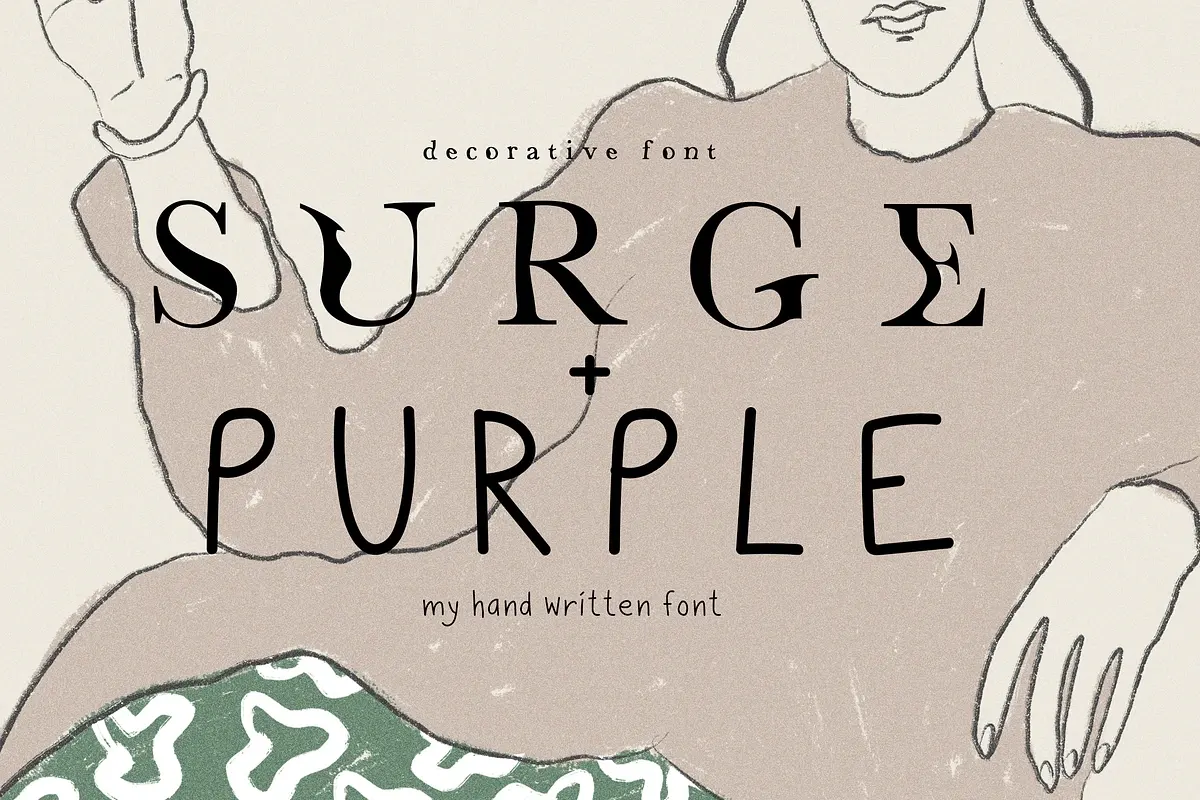
Decorative + handwritten font set Free Download
Decorative + Handwritten Font Set Free Download
Ideal for invitations, branding, social media posts, logos, packaging, and more, this set provides endless possibilities to make your typography stand out. It includes uppercase and lowercase letters, numerals, punctuation, and multilingual support, ensuring flexibility across a variety of uses.
Whether you're crafting a whimsical brand identity, creating a custom invitation, or working on playful, artistic designs, the Decorative + Handwritten Font Set will give your projects a unique and personalized look.